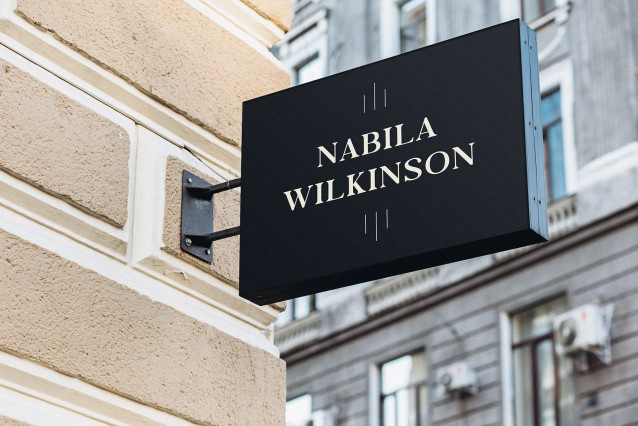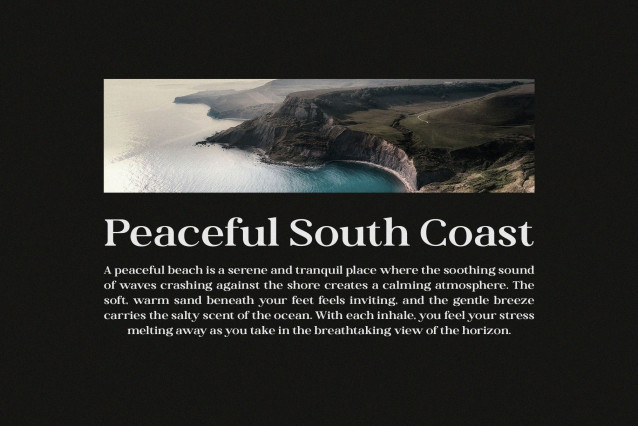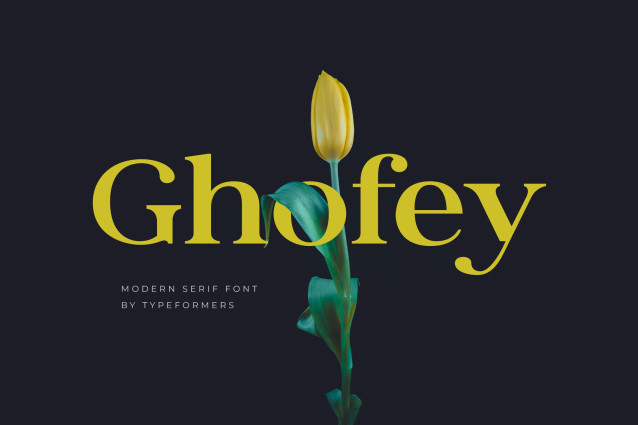
Ghofey Font
Ghofey Font is a modern and simple font, best used as a display for headings, logos, branding, magazines, product packaging and invitations.